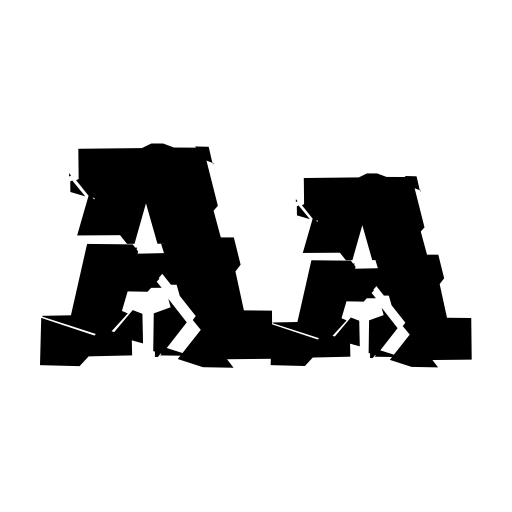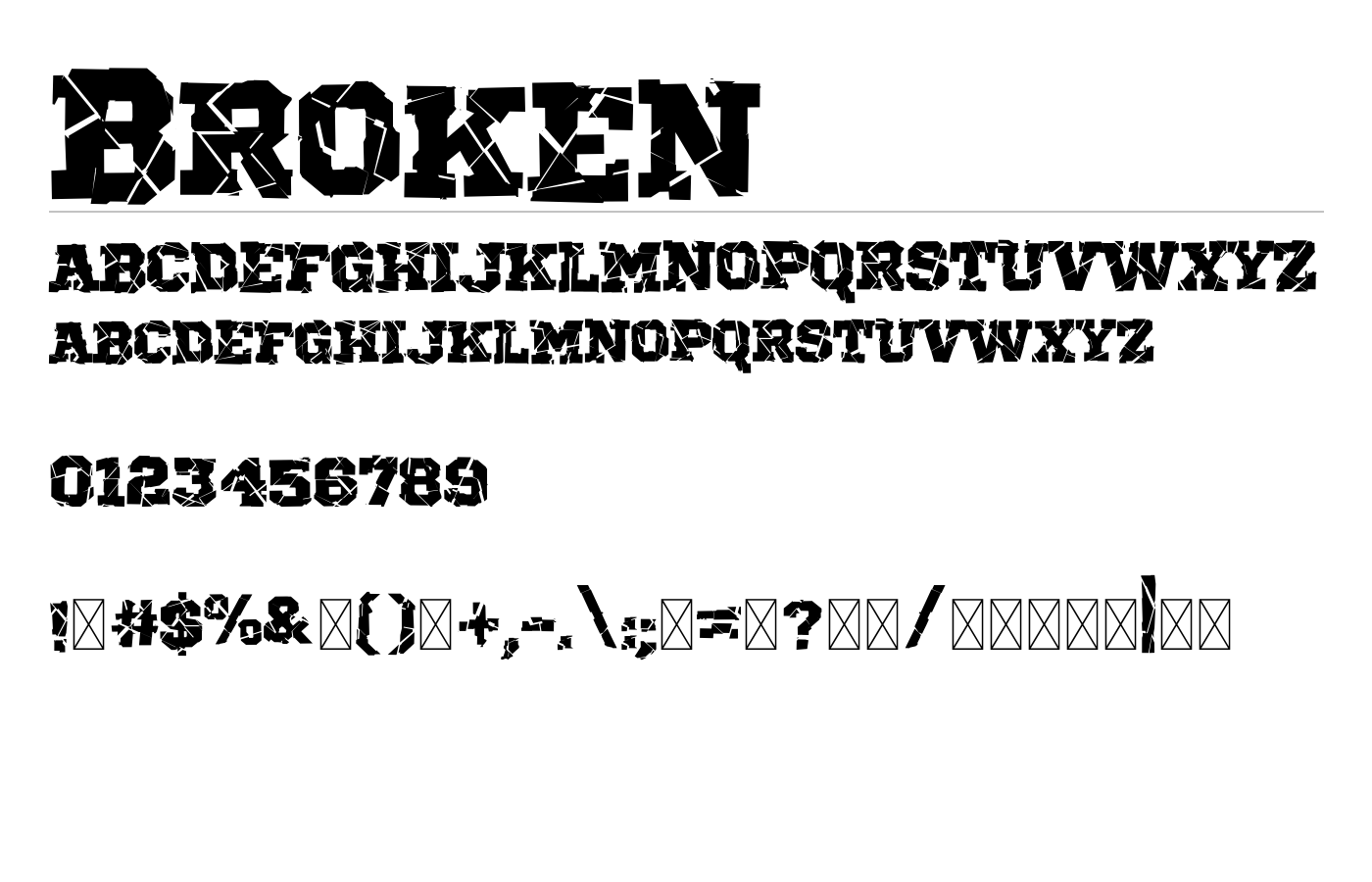
Broken Font is a bold, slab serif typeface with a distressed, fragmented look that gives it a gritty, rugged personality. Its high contrast and shattered stencil-like shapes make it perfect for eye-catching headlines, posters, and designs needing a bold, rebellious vibe. This font works well in creative branding and display purposes where a strong, unconventional statement is desired.
Broken Font
About Broken Font
| Font family | Broken Font |
| Designer | Nirmal Biswas |